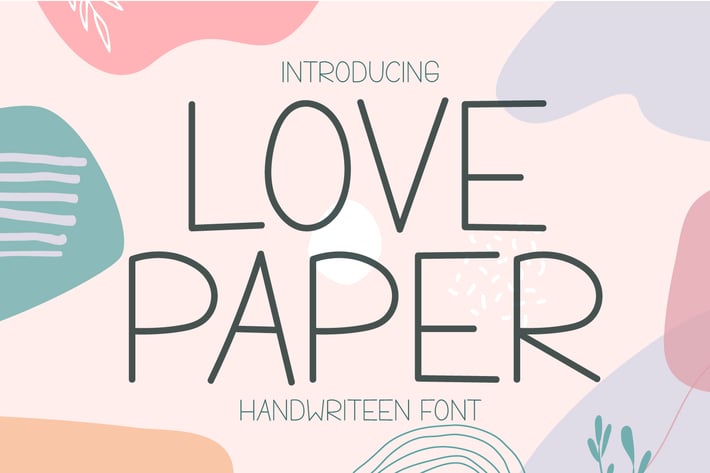
Love Paper - Handwritten Display Font
Introducing Love Paper - Handwritten Display Font
Love Paper is an incredibly unique display font. Masterfully designed to become a true favorite, this font has the potential to bring each of your creative ideas to the highest level!
This font is perfect for quotes, shirt designs, websites, branding, children’s designs, blogs, logos, invitations and more!